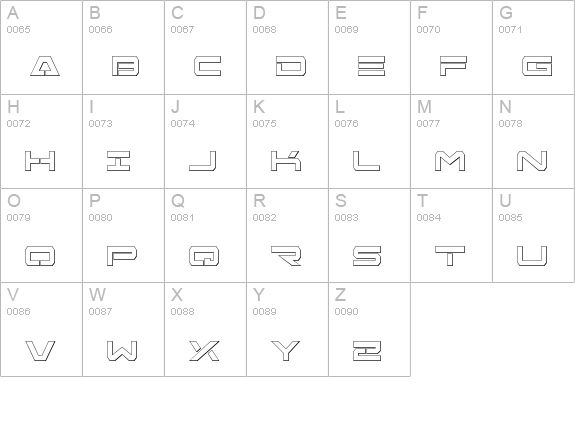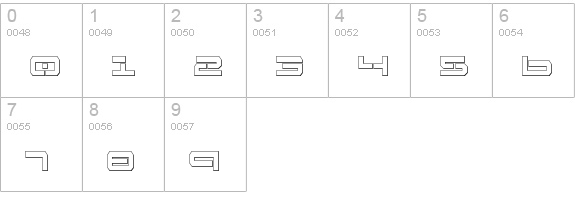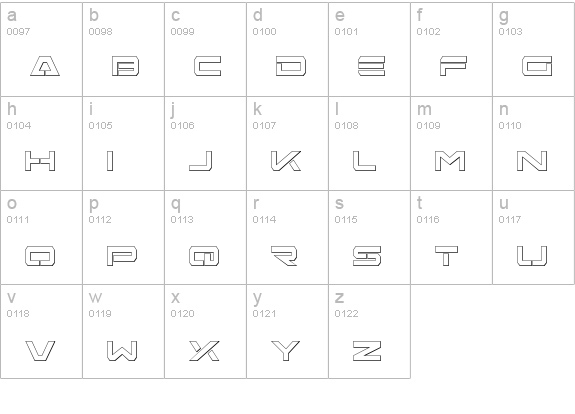
Free Agent Bold 3D Font Details
Free Agent Bold 3D is a strong, high-contrast variant in the Free typeface family \xE2\x80\x94 well suited to headlines, attention-grabbing titles, and strong calls-to-action.
Introducing Free Agent Bold 3D font, a dynamic and eye-catching typeface that exudes confidence and modernity. This unique font is perfect for making a bold statement in your design projects, whether it be for posters, logos, or branding materials. The 3D effect adds depth and dimension, making your text stand out with a striking visual impact. The best part is, Free Agent Bold 3D font is completely free to download at FontsMarket.com. You can easily access this stylish and versatile font to elevate your creative projects without any cost. Don't miss out on the opportunity to enhance your designs with this captivating typeface that is sure to leave a lasting impression. Download Free Agent Bold 3D font today and let your creativity shine!